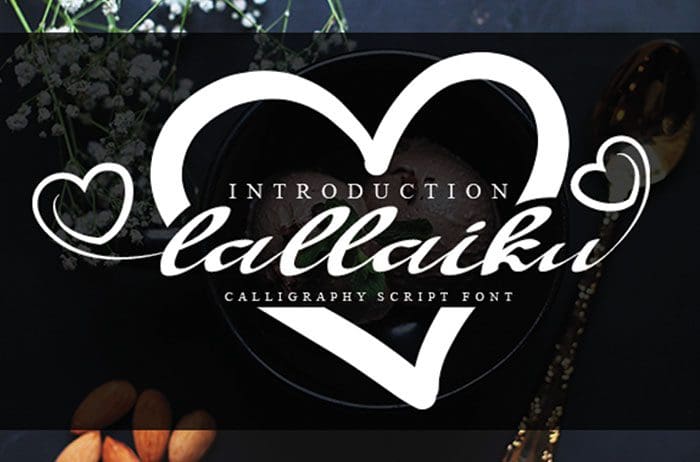
Lallaiku Calligraphy Font
Free Lallaiku is a cute calligraphy font. Get inspired by its authentic feel and use it to create gorgeous wedding invitations, beautiful stationary art, eye-catching social media, and more. Designed this font by Andika Studio. You can also search more freeĀ Calligraphy Fonts.